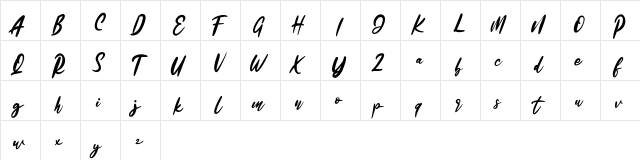
Kaduta FREE Regular
Design Context for Kaduta FREE Typeface
Kaduta FREE is a composed and adaptable typeface that performs quietly and consistently across a wide range of design contexts.